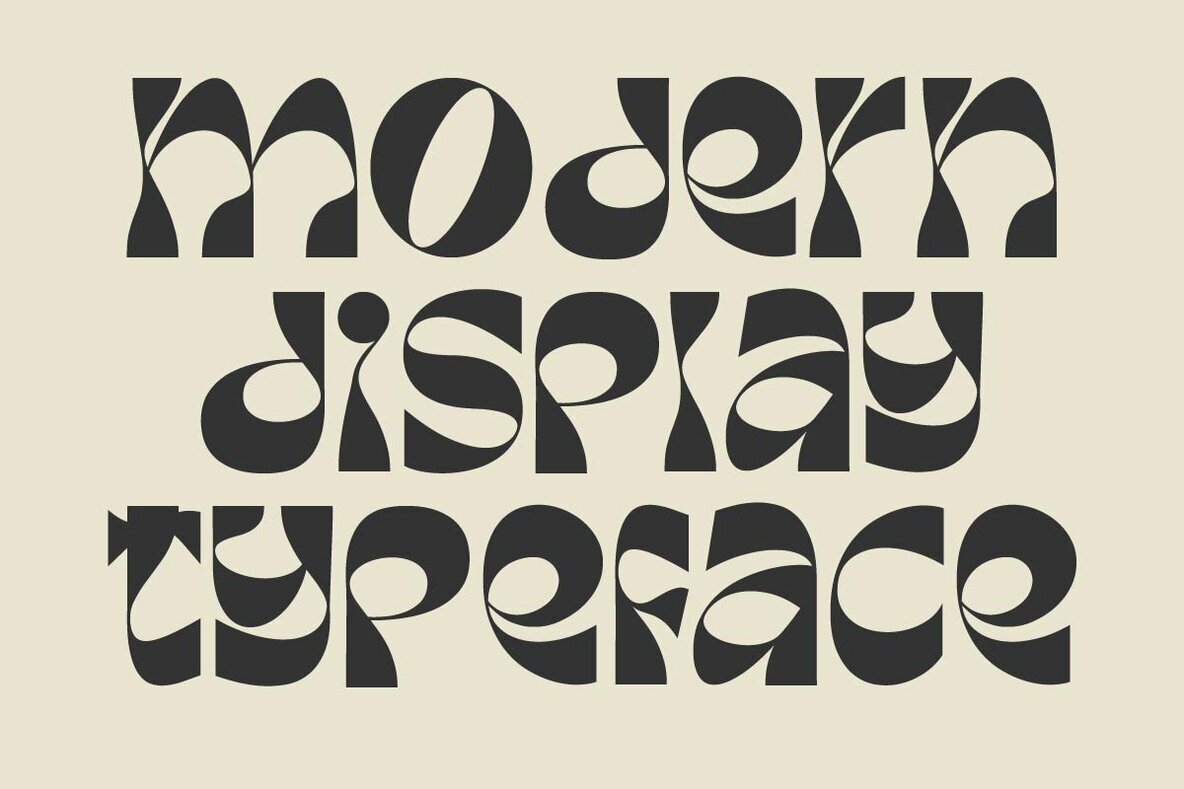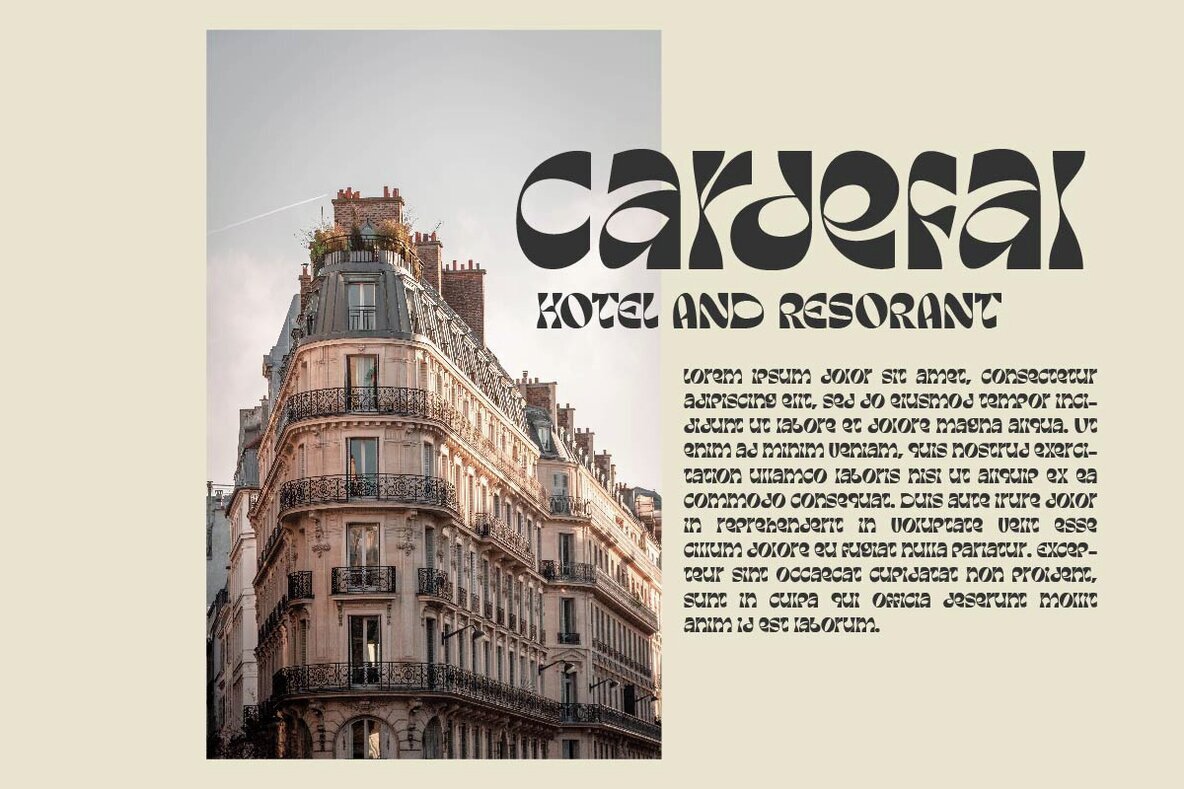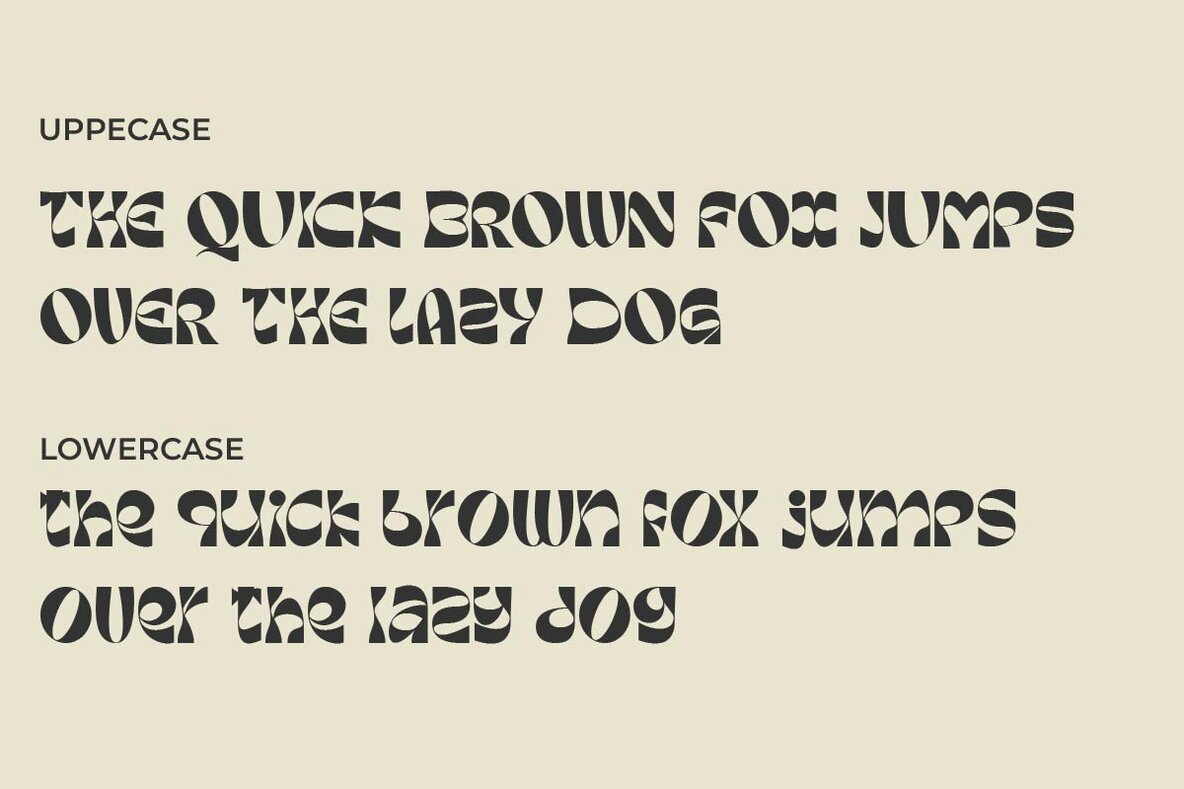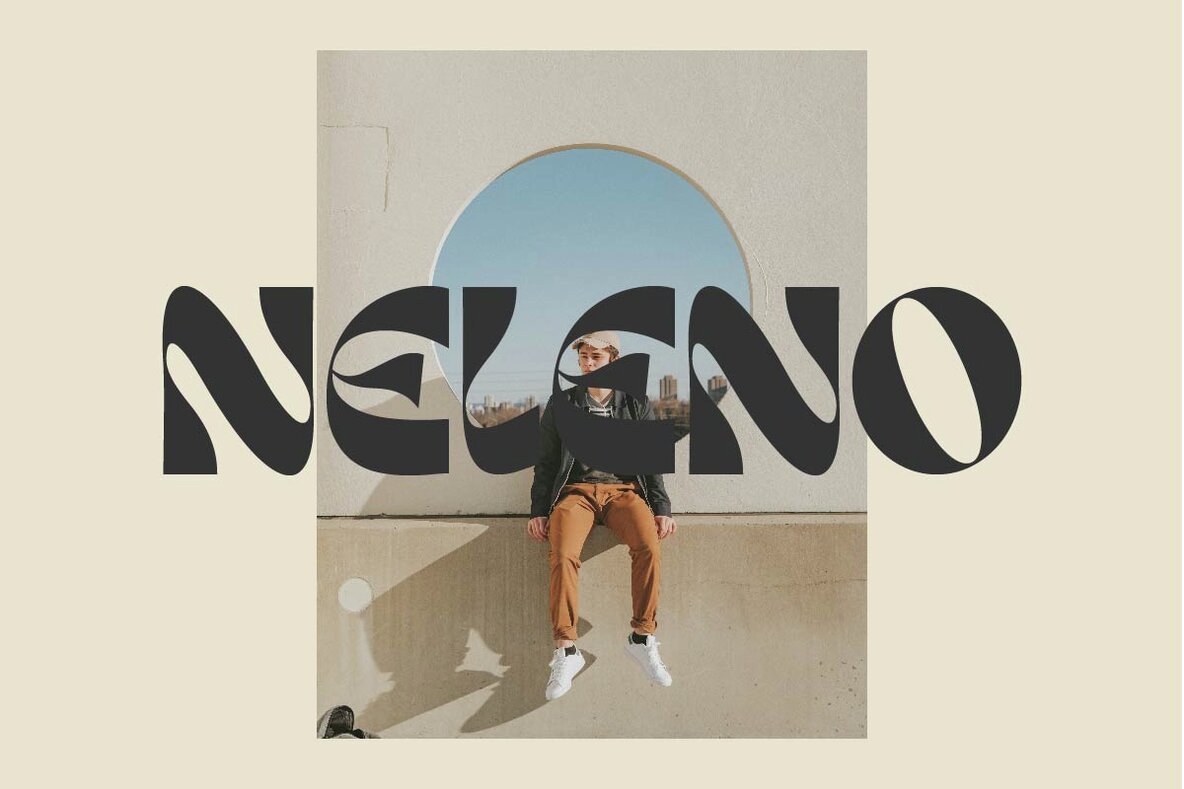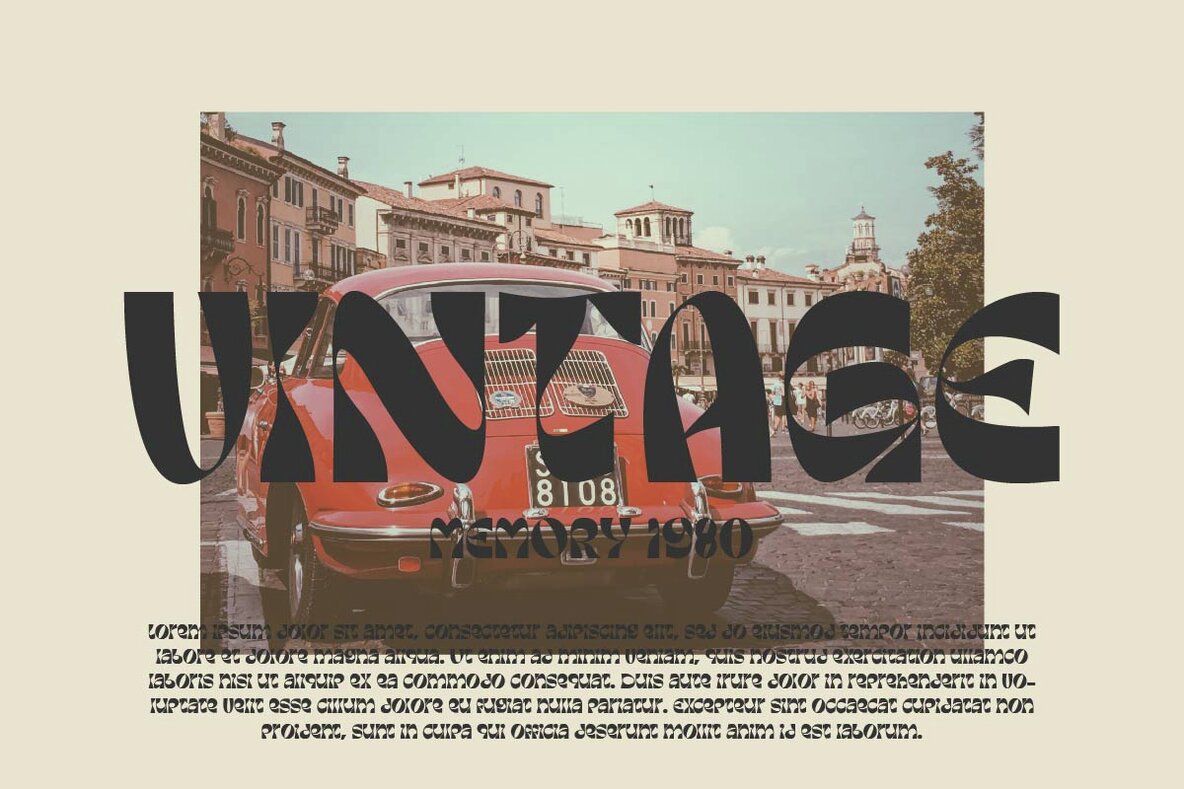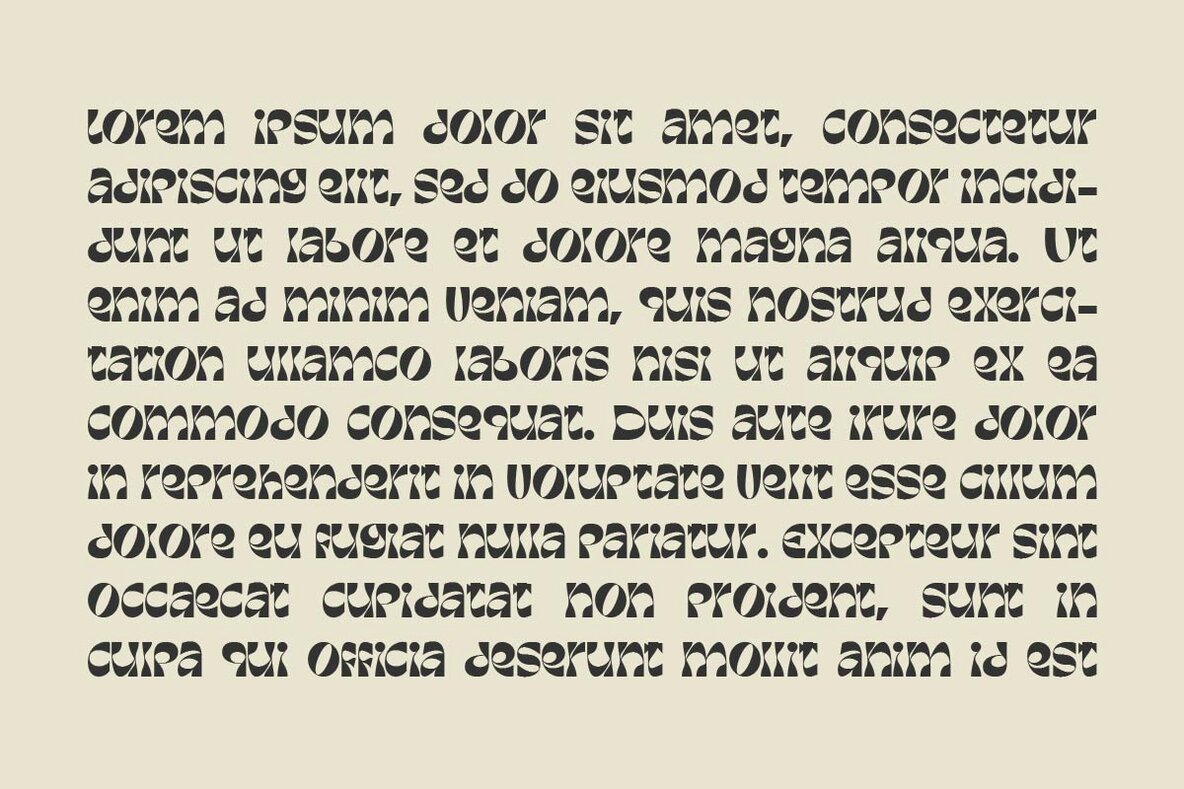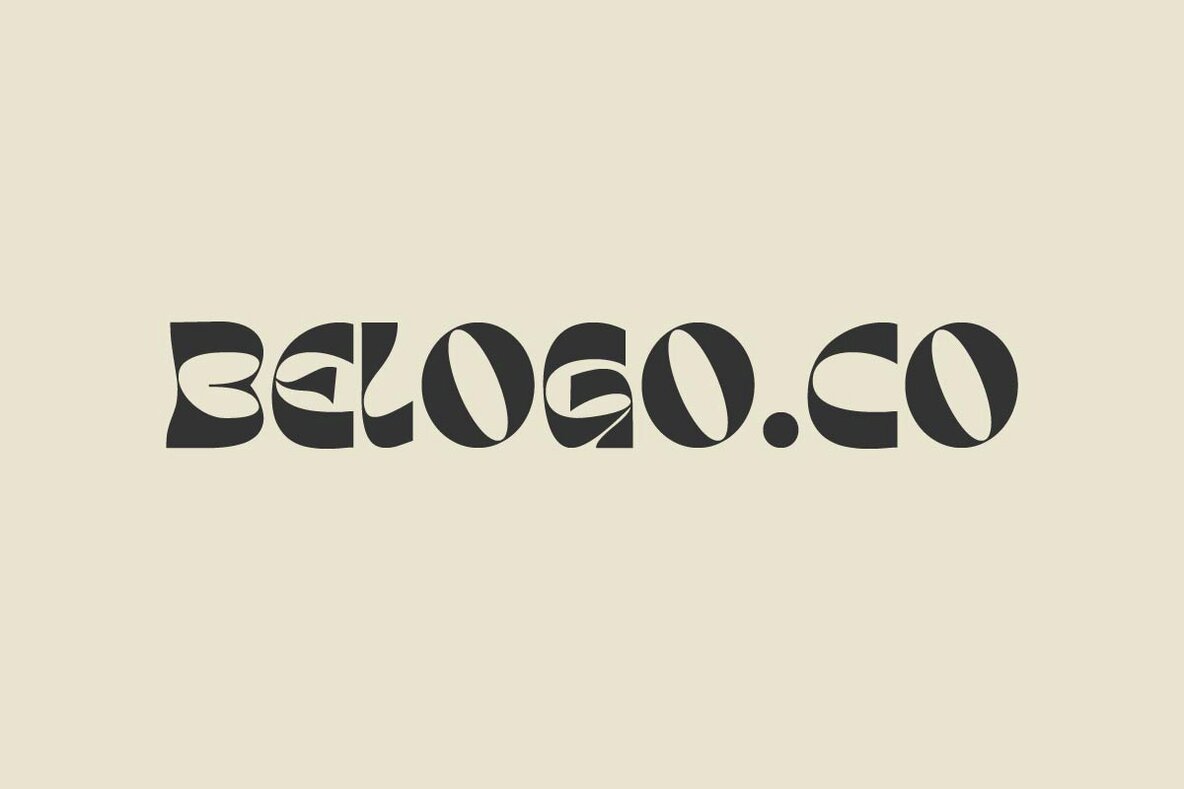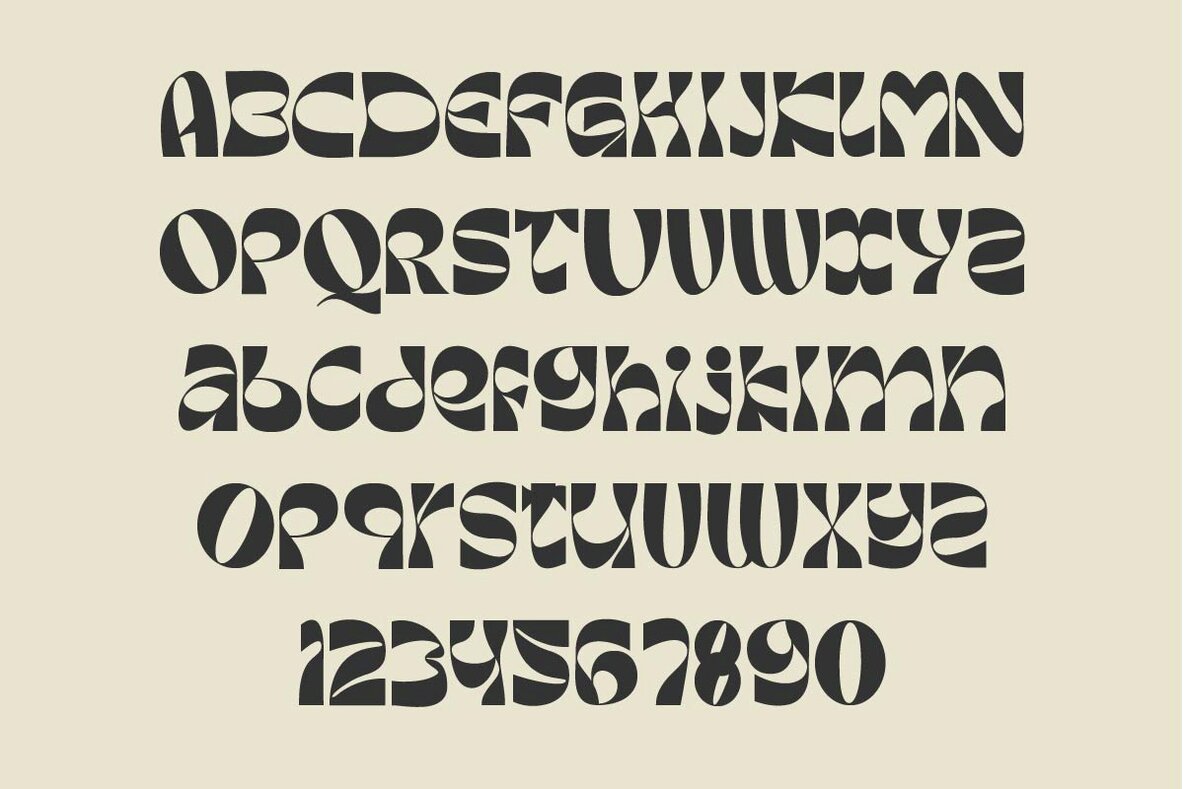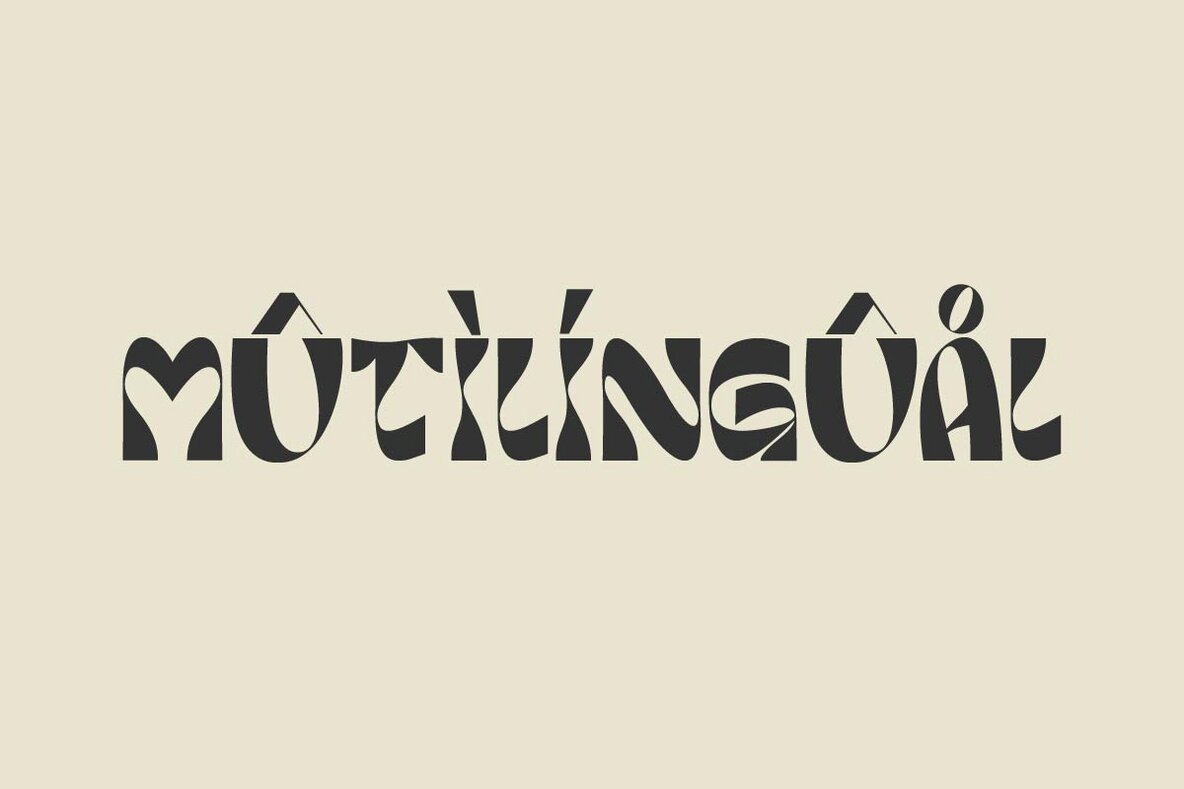
Margeo Modern Display Font: Versatile and Stylish
Margeo is a modern display font crafted by Muksal Creative, featuring special glyphs, ornaments, and multilingual support. It is a versatile choice that excels in both large and small sizes, making it perfect for various projects, including editorial designs, logo creation, clothing branding, product packaging, and magazine headers. Additionally, it can enhance any background image as a stylish text overlay.
• Alphabet Variety – Includes both lowercase and uppercase characters.
• Complete Set – Offers numerals and punctuation for full functionality.
• Multilingual Support – Accommodates a wide range of languages.